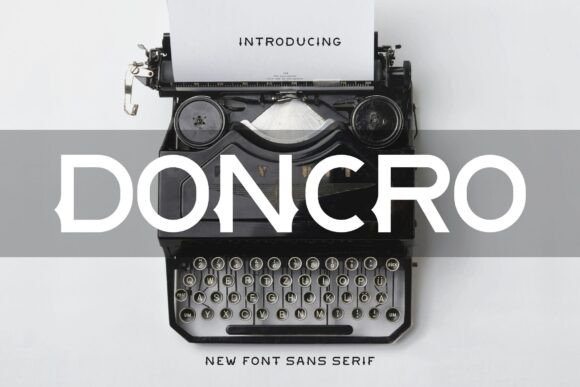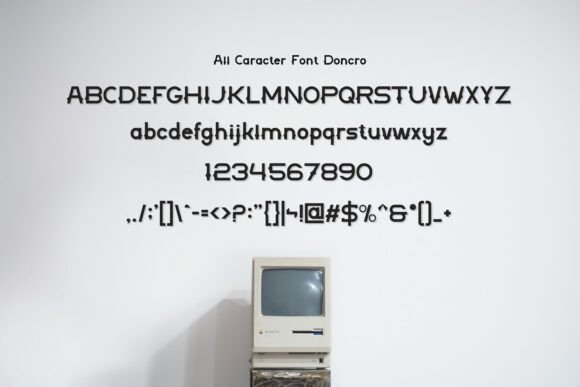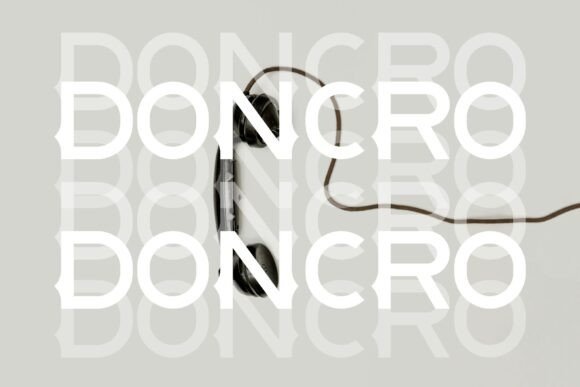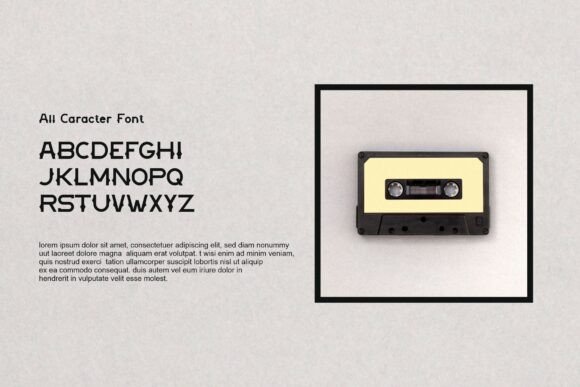
Doncro Font: A Bold Sans Serif for Modern Logo Design & Branding
About the Doncro Font
Make a bold statement with Doncro Font, a powerful and memorable font. Doncro is a bold and assertive sans serif font. No matter the topic, this font will be an incredible asset to your fonts’ library, as it has the potential to elevate any creation.
Doncro’s assertive personality makes it ideal for headlines, branding elements, and short impactful statements on posters or packaging. Its strong forms command attention, making it unsuitable for body text or extended reading. Avoid using it in user interfaces where readability is paramount.
The boldness of Doncro is best complemented by a softer contrast. Pairing it with a clean, neutral sans-serif like Open Sans for body text creates a balanced hierarchy. For a more sophisticated look, consider a classic serif such as Garamond or a slightly more geometric sans-serif like Montserrat.
Doncro projects a powerful, modern, and confident image, suitable for brands emphasizing strength, innovation, or authority. Its assertive nature is well-suited for technology companies, corporate identities, and products targeted at a discerning audience.